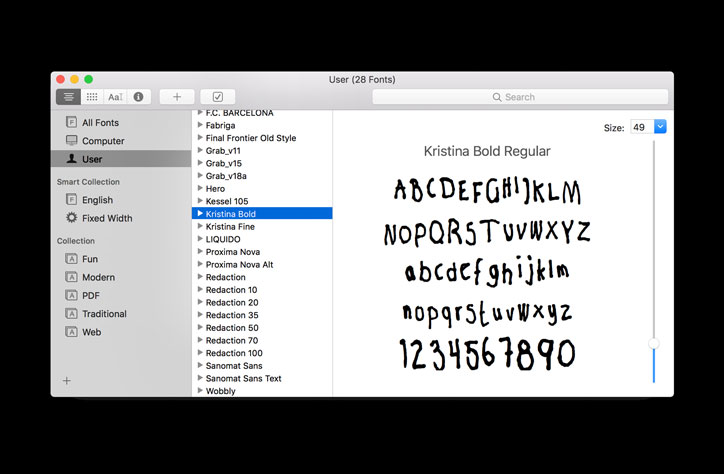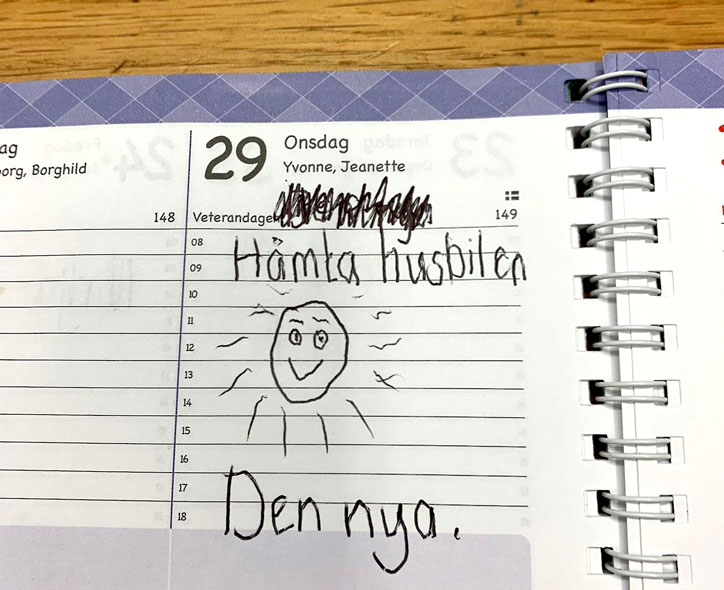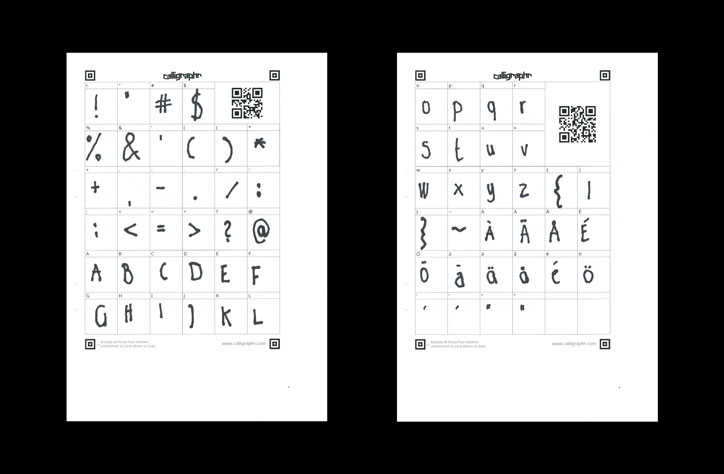
Kristina Bold is a typeface modelled on its namesake’s post-stroke handwriting
Creatives Conrad Haddaway and Sherwin Teo have developed a new typeface in collaboration with stroke survivor Kristina, based on her handwriting. Kristina suffered a stroke in 2013 and lost many cognitive abilities, including the ability to write, but has recently succeeded in re-teaching herself. The free typeface celebrates the determination behind this huge achievement and coincides with today’s World Stroke Day (29 October), with Haddaway and Teo calling on designers and publications to switch to the typeface today to show support to people that have suffered strokes and their families.
Haddaway and Teo, who are currently working at 72andSunny Singapore, first met Sweden-based Kristina through Haddaway’s partner and learnt of her determination to overcome the effects of her stroke, which had left her partially paralysed. Haddaway says, “It was really scary to hear something like that can just completely blindside you and flip your life upside down.” The idea for a typeface stemmed from a T-shirt Kristina had made with the slogan “Ge aldrig upp” (Never give up) handwritten across the chest. Haddaway adds, “It hit me super hard and from there, it just felt like the natural thing that had to be done.”
It took Kristina years of practice to regain her pre-stoke abilities, first starting with learning how to talk again, then moving on to reading and eventually writing. “For me giving up was never an option,” she says. “I was determined to make things go back to how they used to be. The doctors would tell me the more you practice, the more you’re going to be able to take back your abilities.”
To develop the typeface, Kristina wrote down every character in English and Swedish, scanned them and emailed them to Haddaway and Teo in Singapore. The pair then sorted through the letterforms, adjusting heights to make a coherent set. Haddaway says, “Sherwin and I studied Graphic Design at Central Saint Martins so we’ve had a bit of experience with type but the way of doing this was obviously less conventional. It’s not meant to be perfect.“
Kristina Bold, which can be downloaded from a specially made website, is intended to be a message of “hope and defiance” for others affected by strokes or people close to them. “When you lose the ability to do something that was once so simple, I’m sure it’s fucking easy to feel hopeless,” says Haddaway. “But, Kristina is proof that if you really fight for it, you can take it back.”
“I hope it helps people continue to fight to take back what they’ve lost,” says Kristina of the project which she describes as “challenging but fun”. “I want other victims to not be ashamed of their struggles and of course, to never give up.”